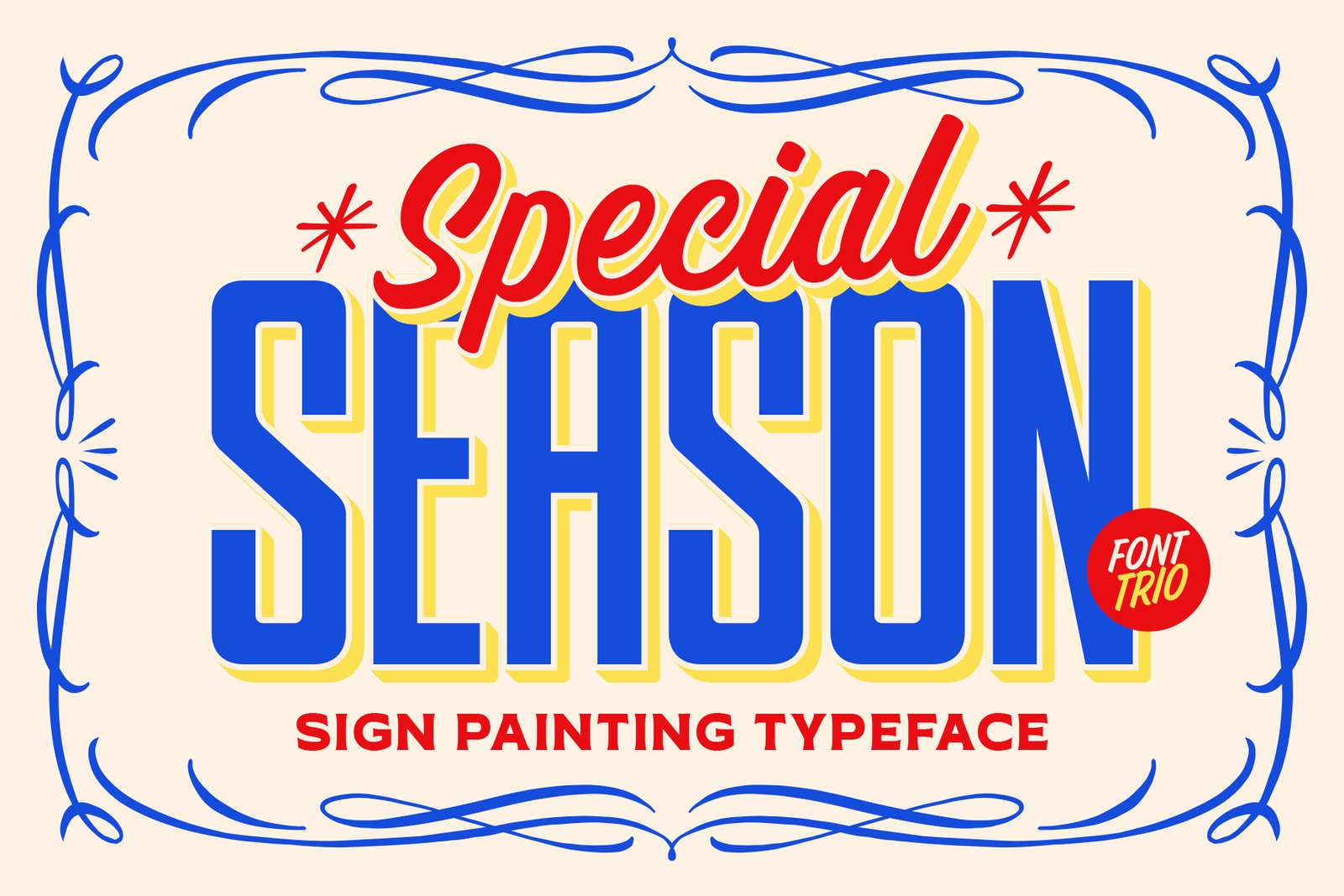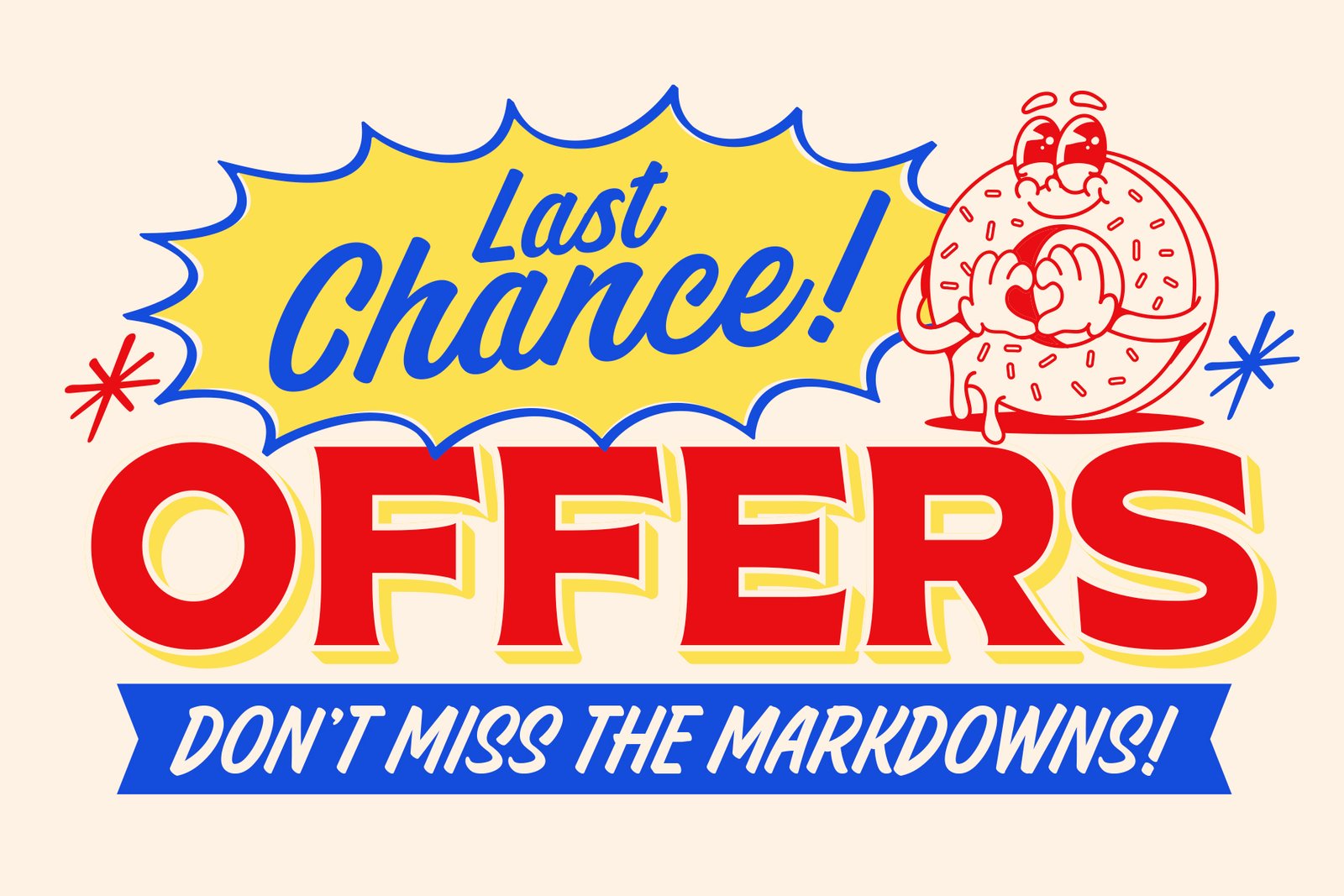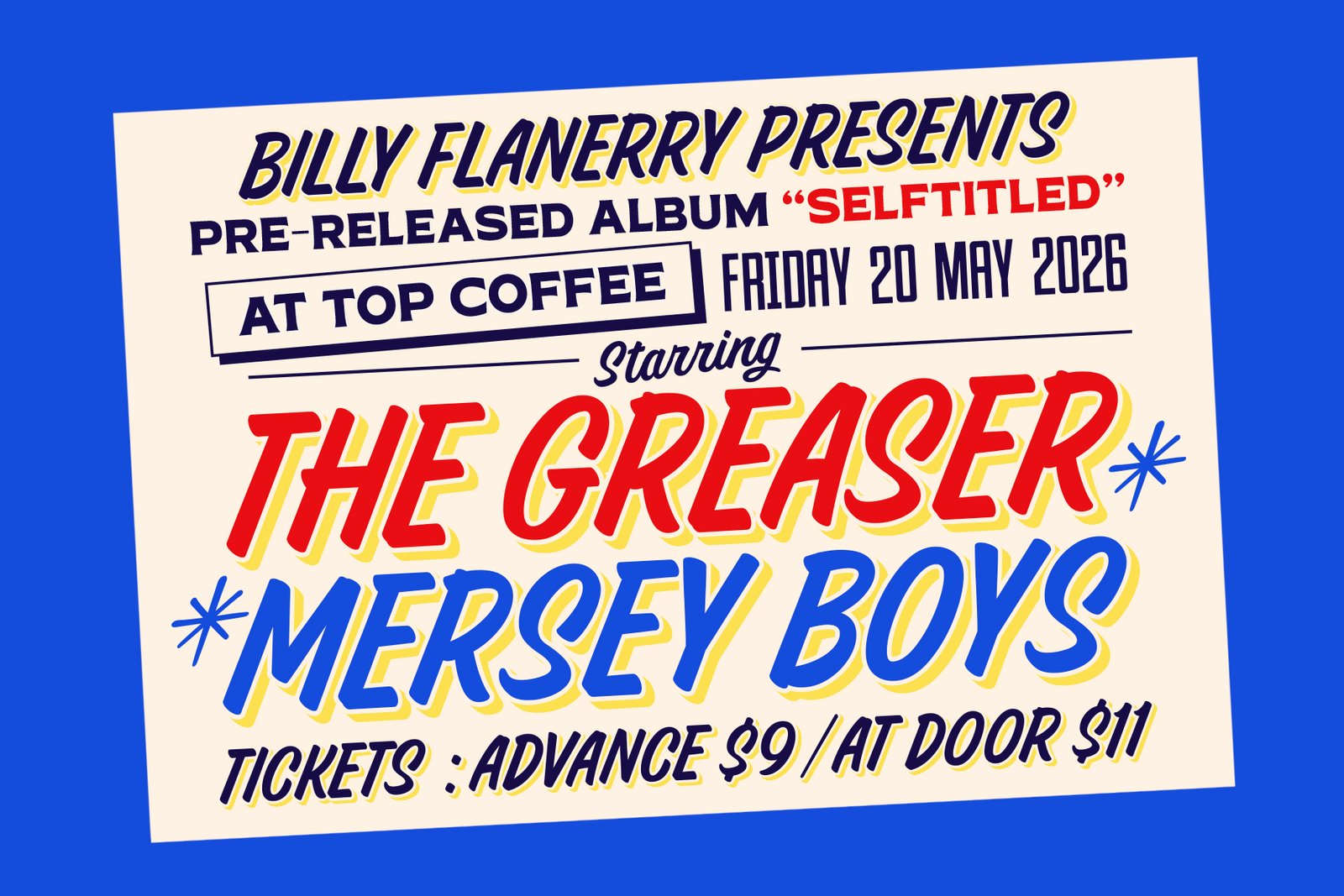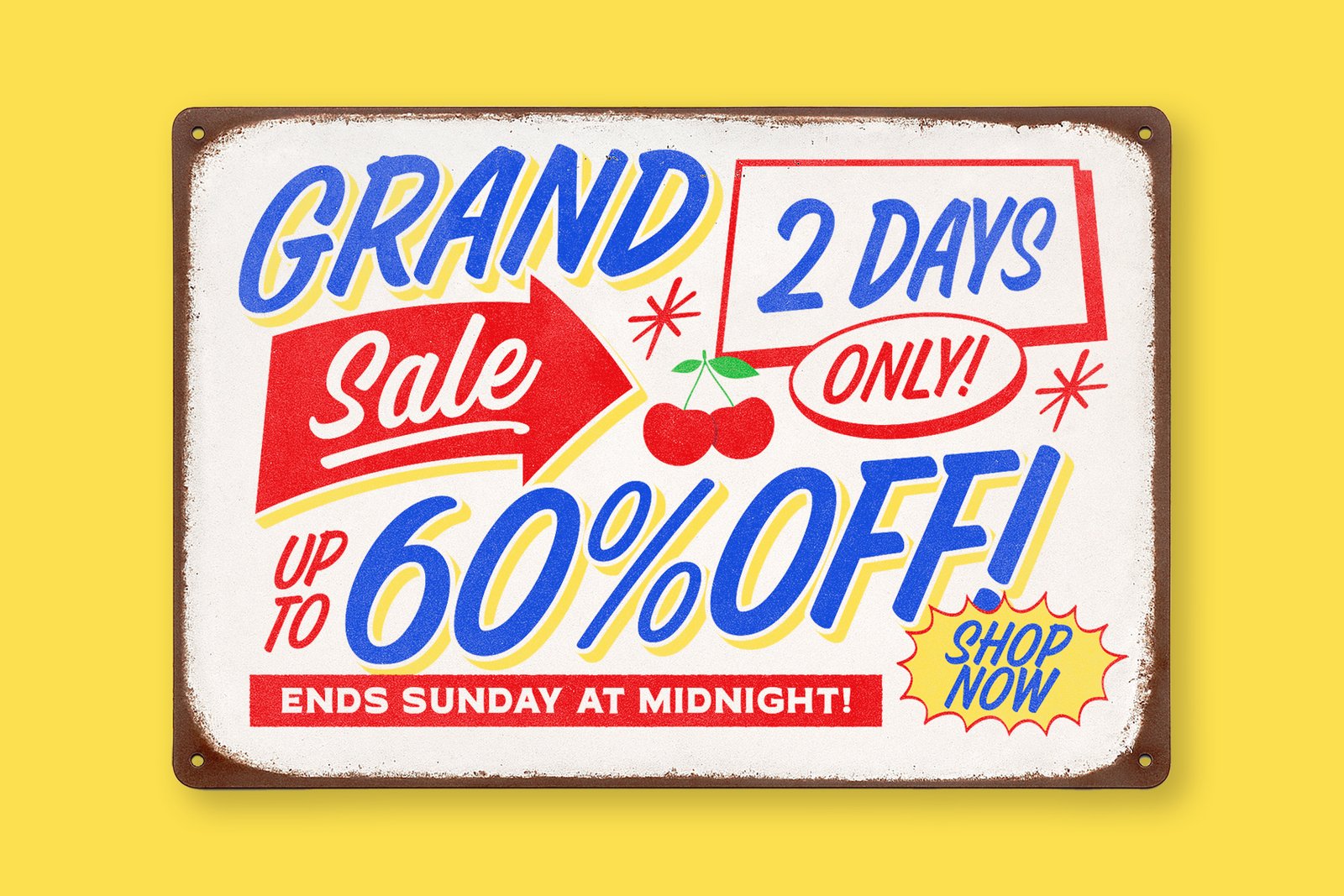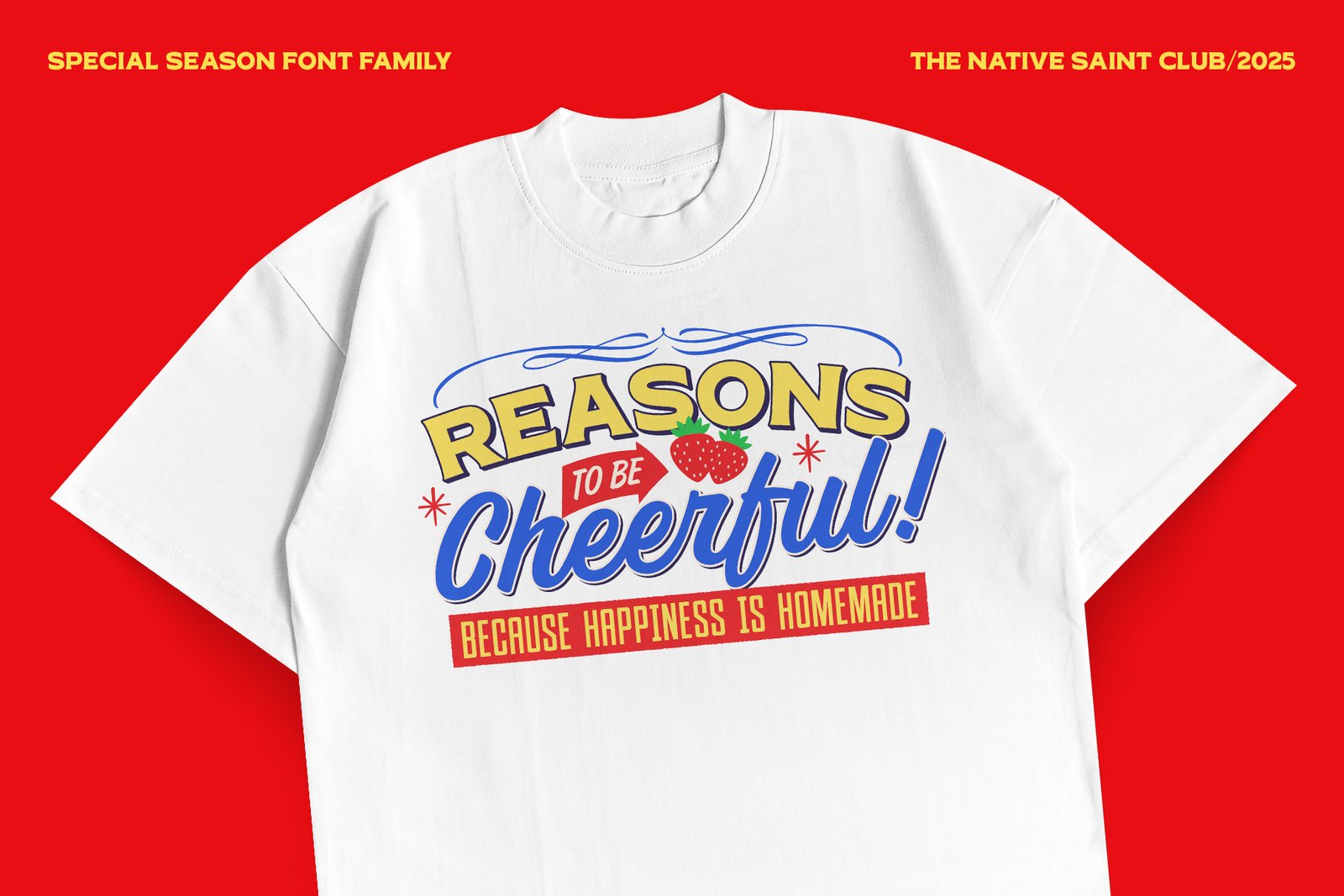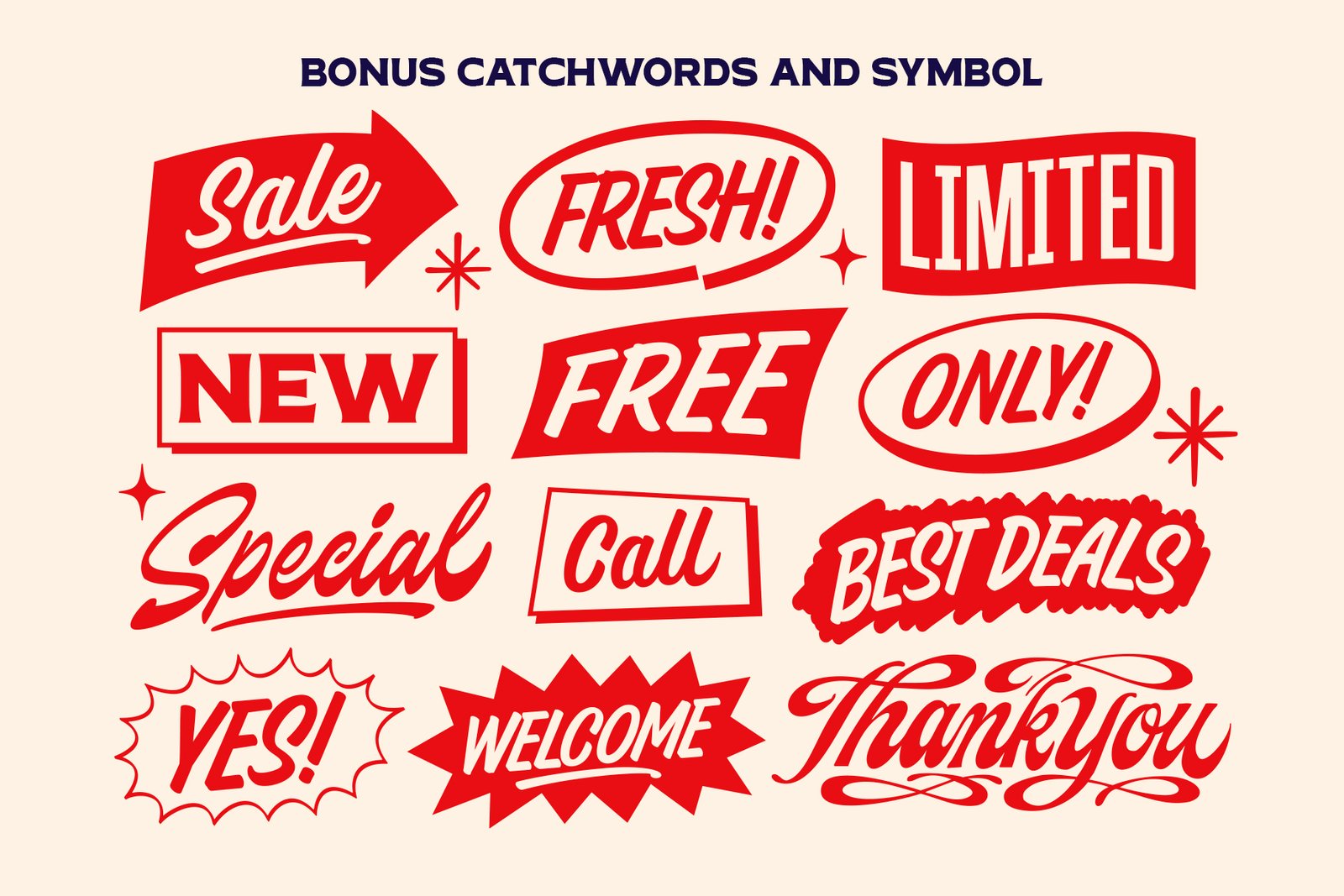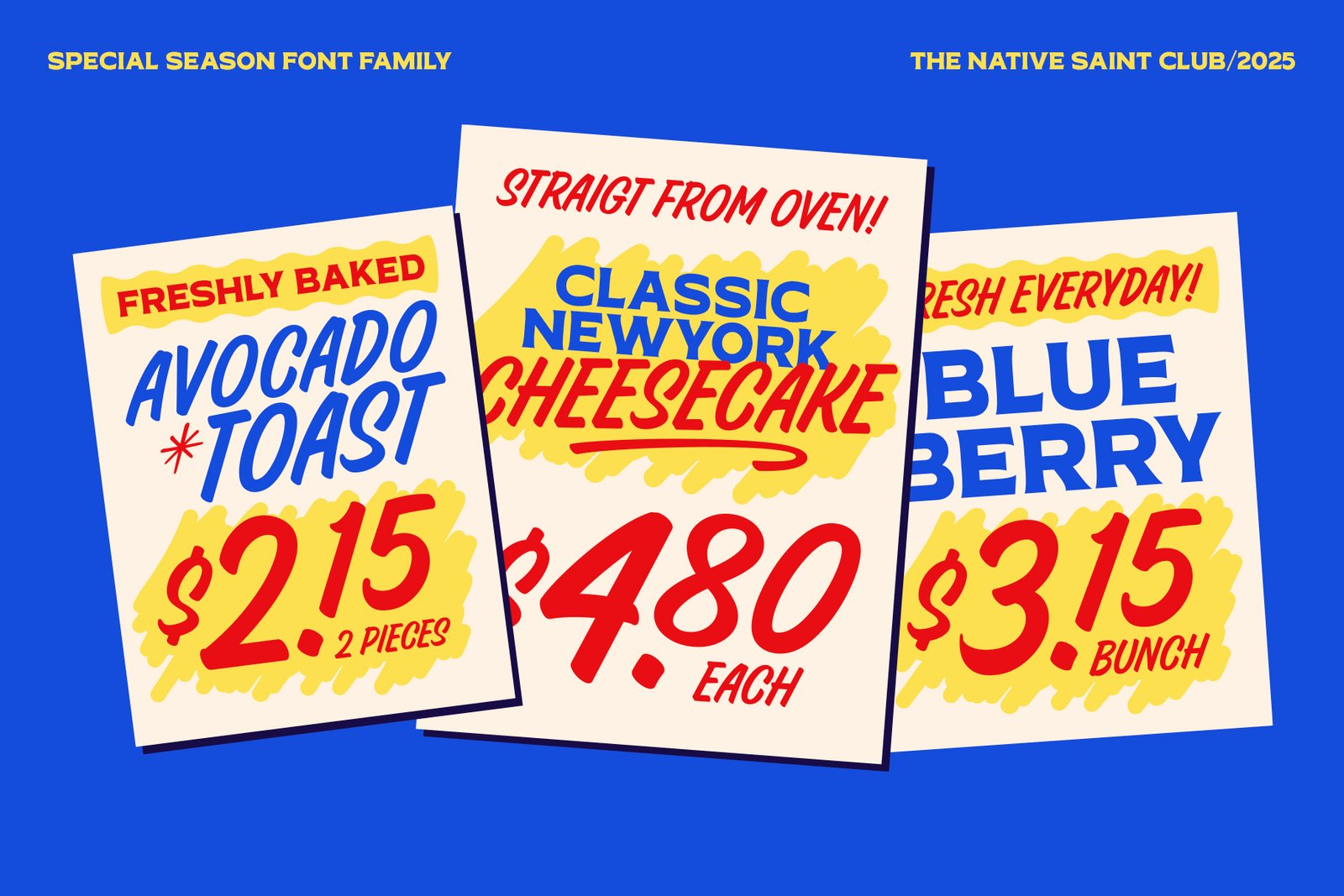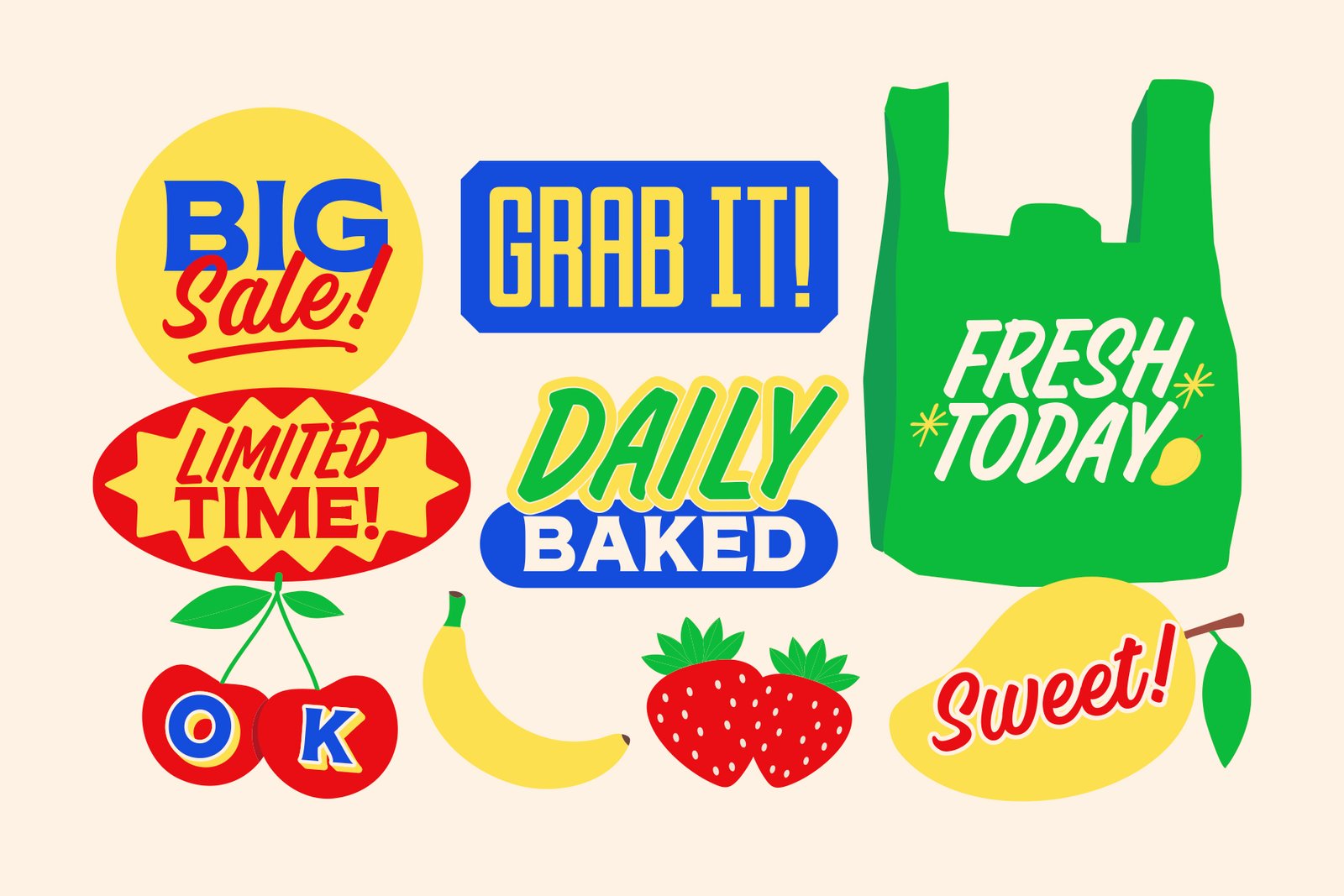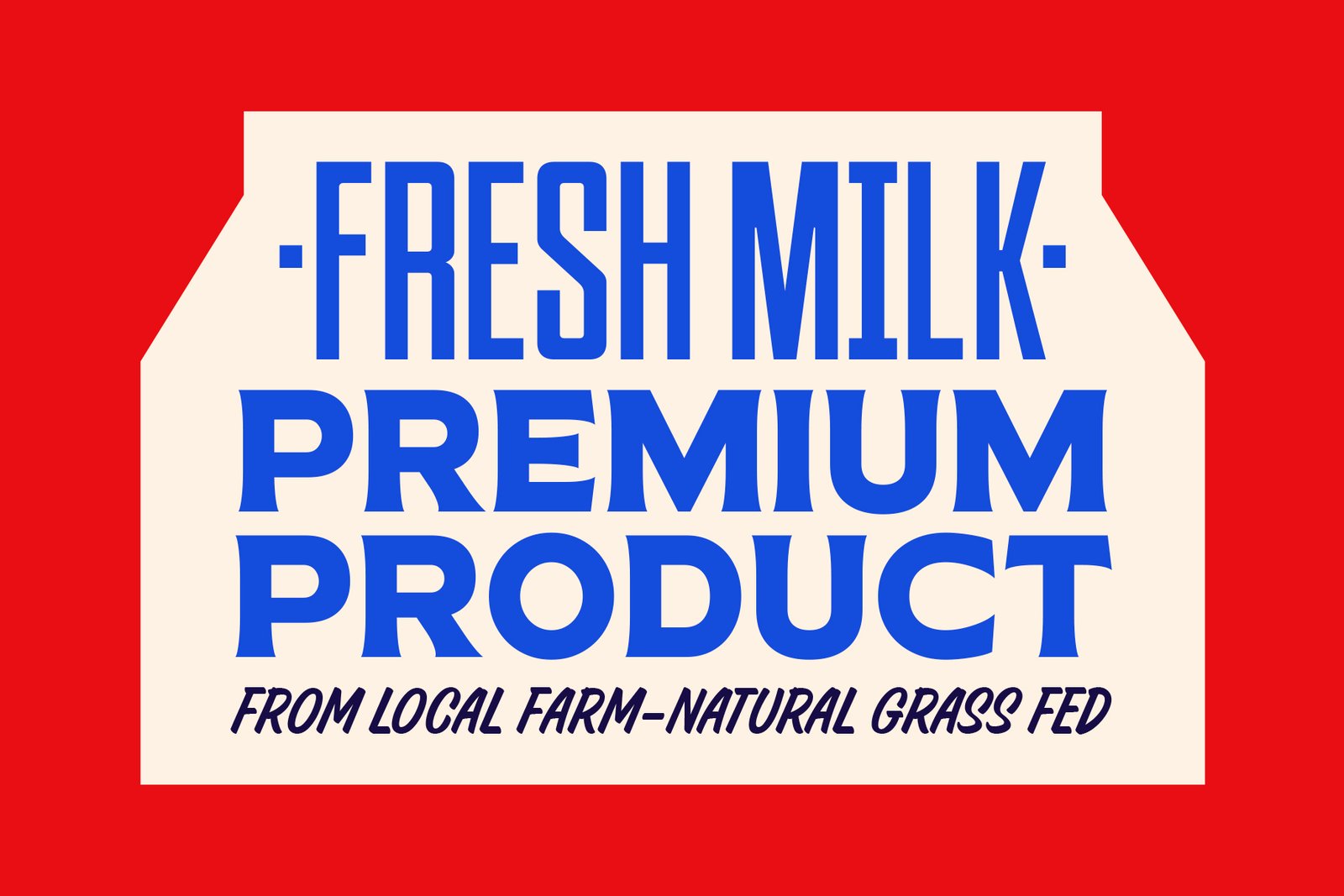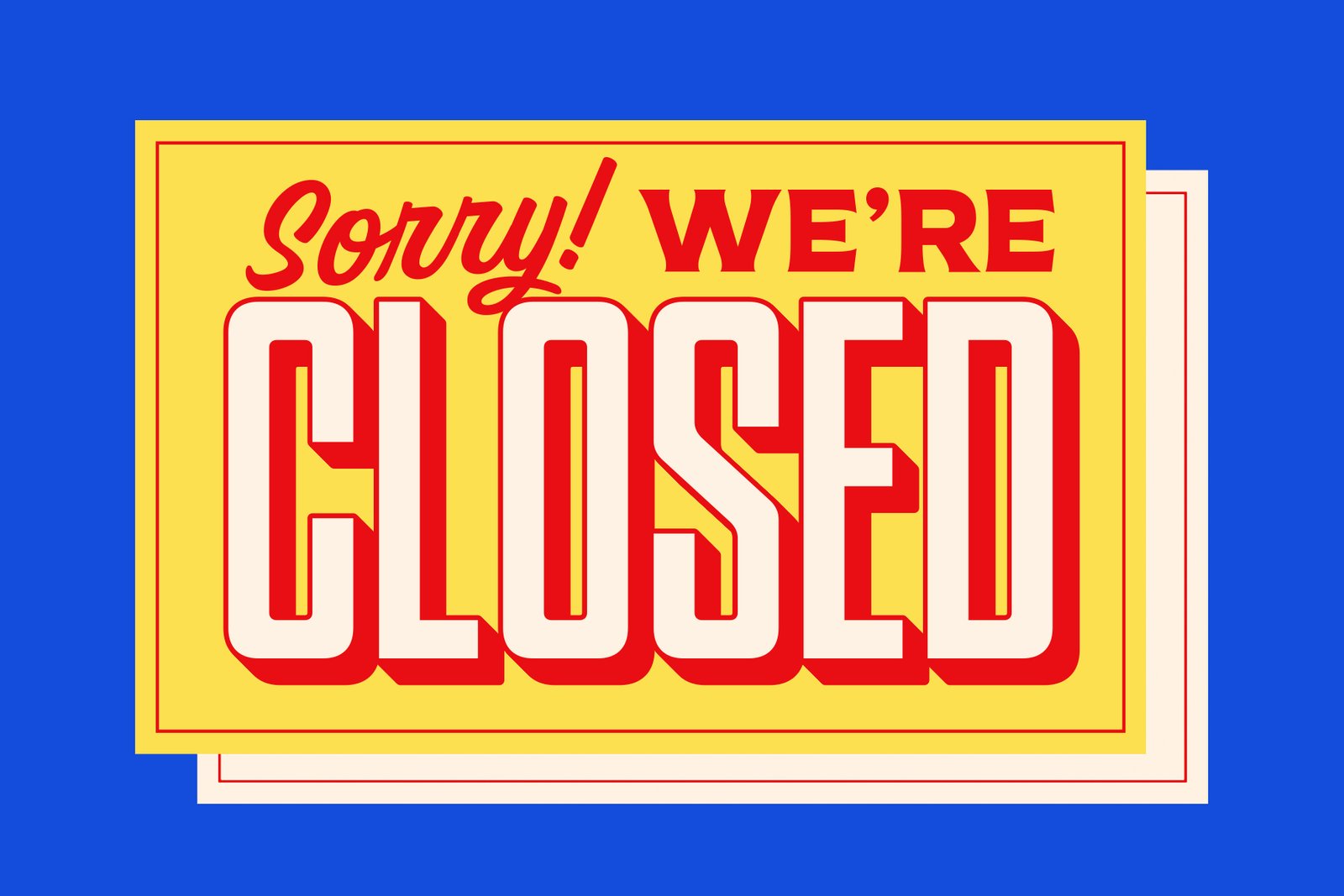
Special Season – Font Trio
Special Season Brush
Special Season Condensed
Special Season Expanded
Special Season Dingbats
TNSC Special Season is a versatile FONT TRIO inspired by classic sign painting, featuring Brush, Sans Serif, and Serif styles. Plus catchwords and symbols to elevate your designs. It’s perfect for branding, packaging, advertising, and printed materials.